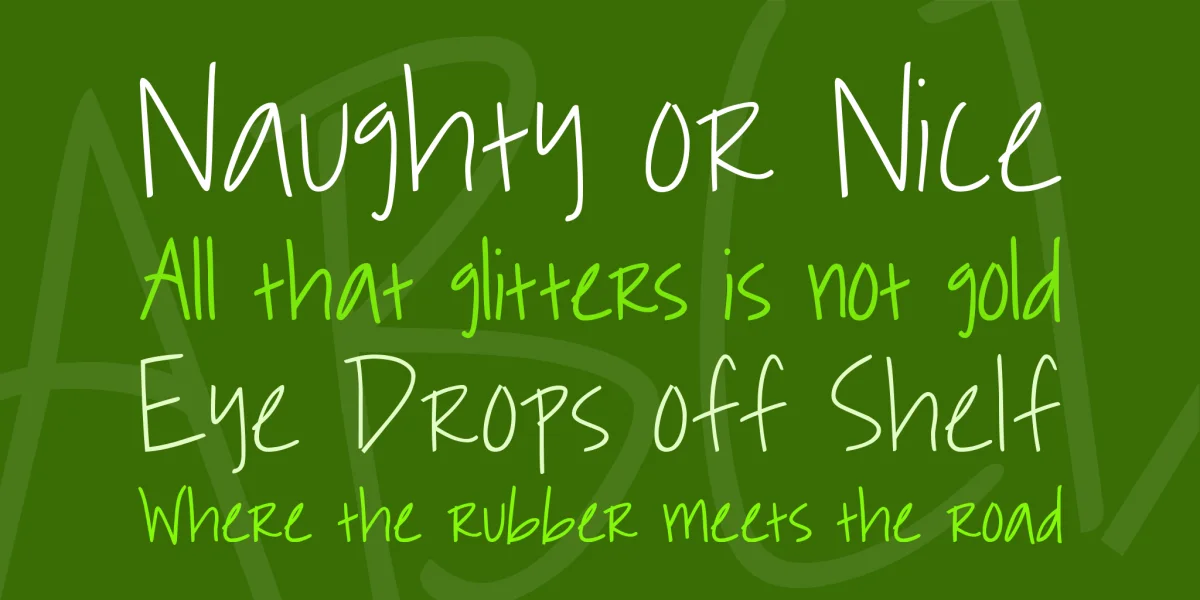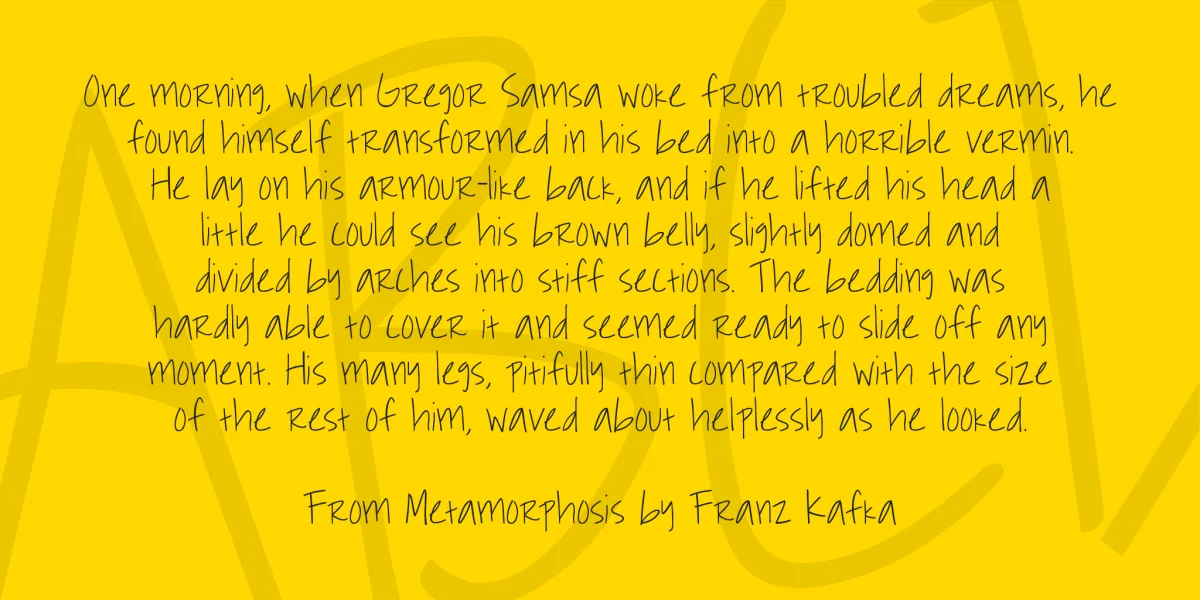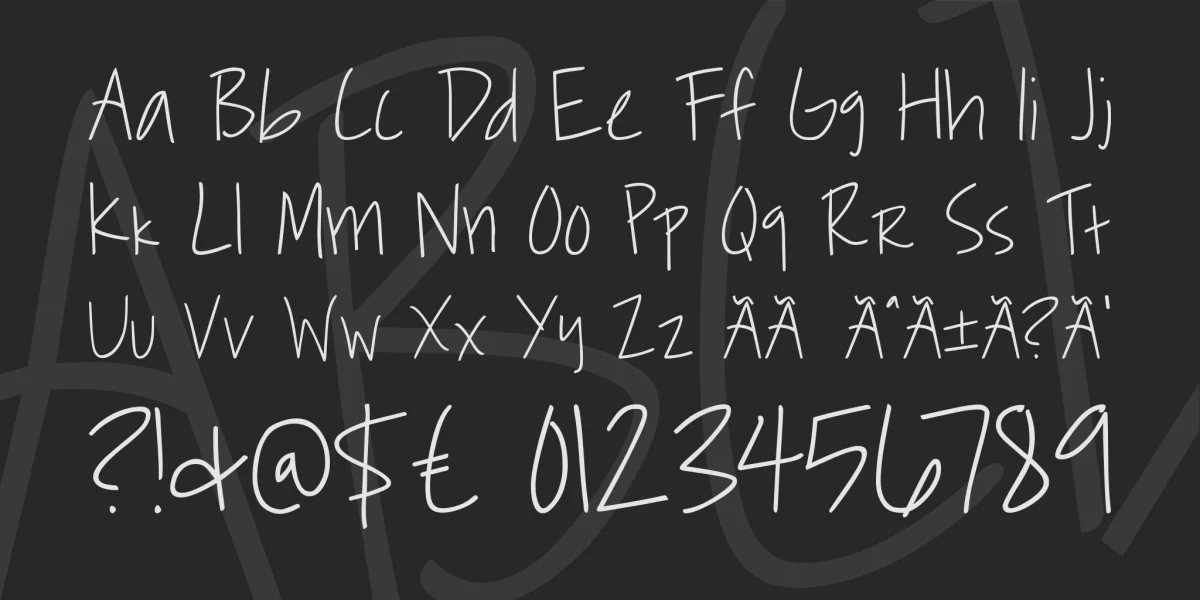
two fonts, roddy and roddy bold. updates for v1.7: hundreds of hinting corrections and 300+ kerning pairs added. note: some of the characters on the preview page may appear to be distorted, but you shouldn't experience any distortion in any windows app. 'roddy' is based on the handwriting of elizabeth garber.